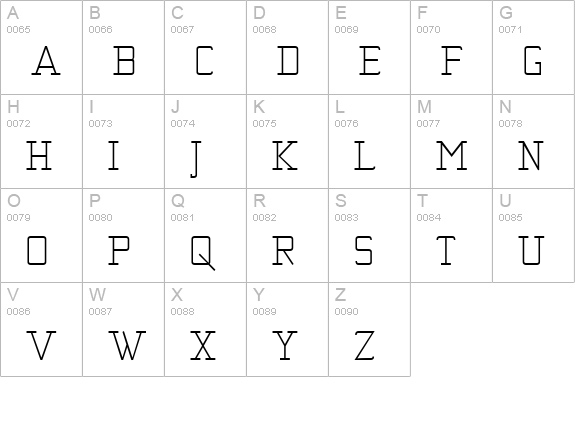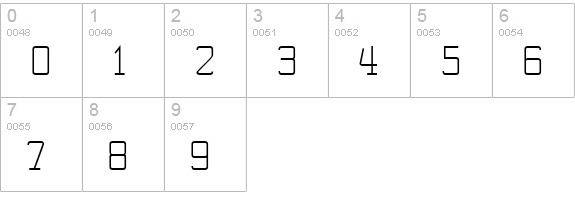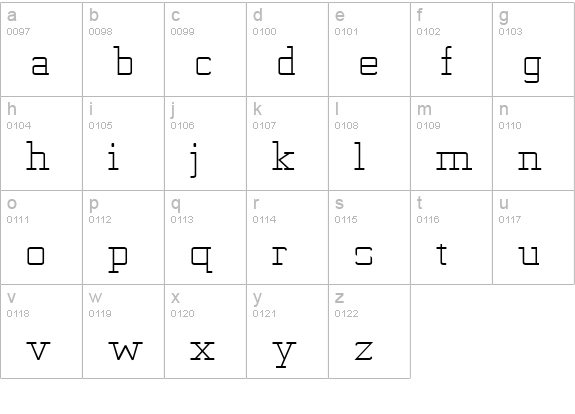
KwersityWider Font Details
Introducing KwersityWider font, a versatile and modern typeface perfect for adding a touch of sophistication to your designs. With its sleek lines and elegant curves, KwersityWider exudes a sense of style and professionalism that is sure to make your projects stand out. This font is not just visually appealing, but also incredibly functional, making it suitable for a wide range of design applications. Whether you're working on a logo, branding materials, website design, or any other project that requires a clean and contemporary look, KwersityWider has got you covered. The best part? KwersityWider is completely free to download at FontsMarket.com, allowing you to access this high-quality font without breaking the bank. So why wait? Elevate your designs today with KwersityWider and see the difference it can make!